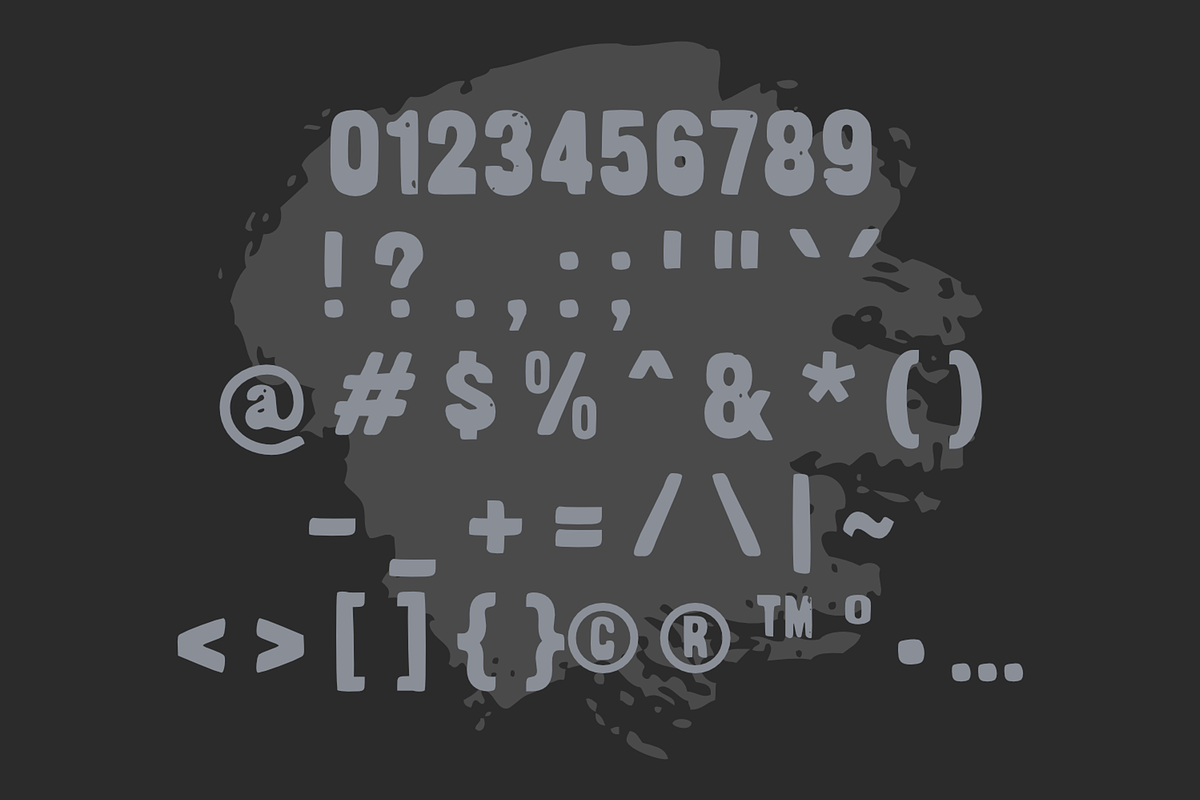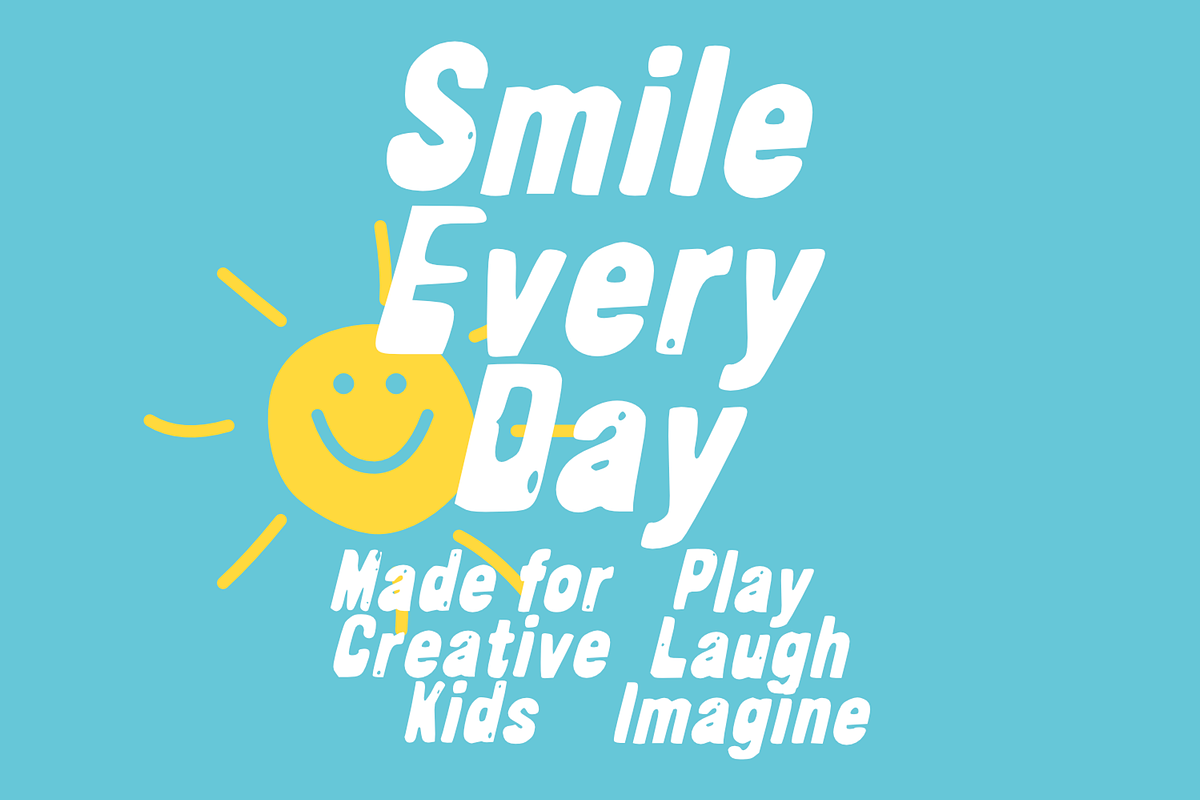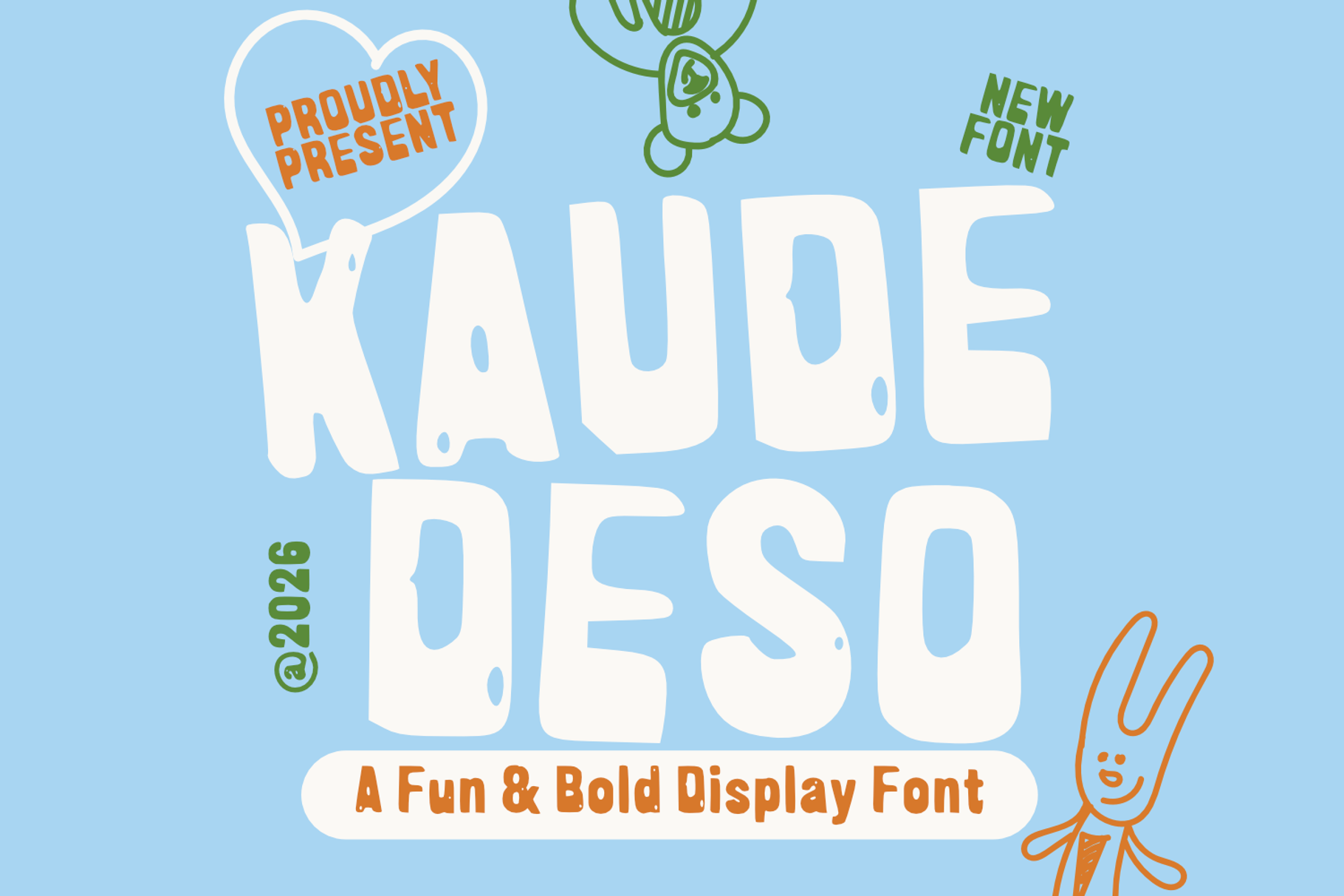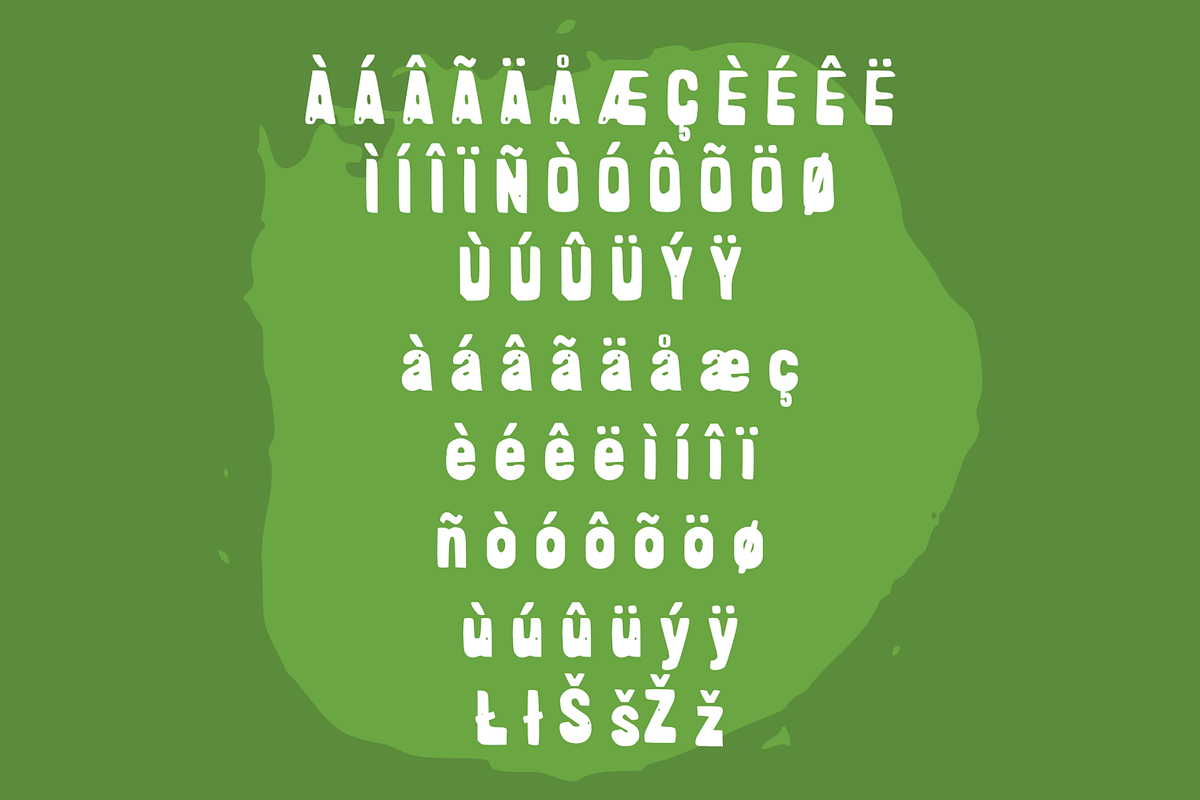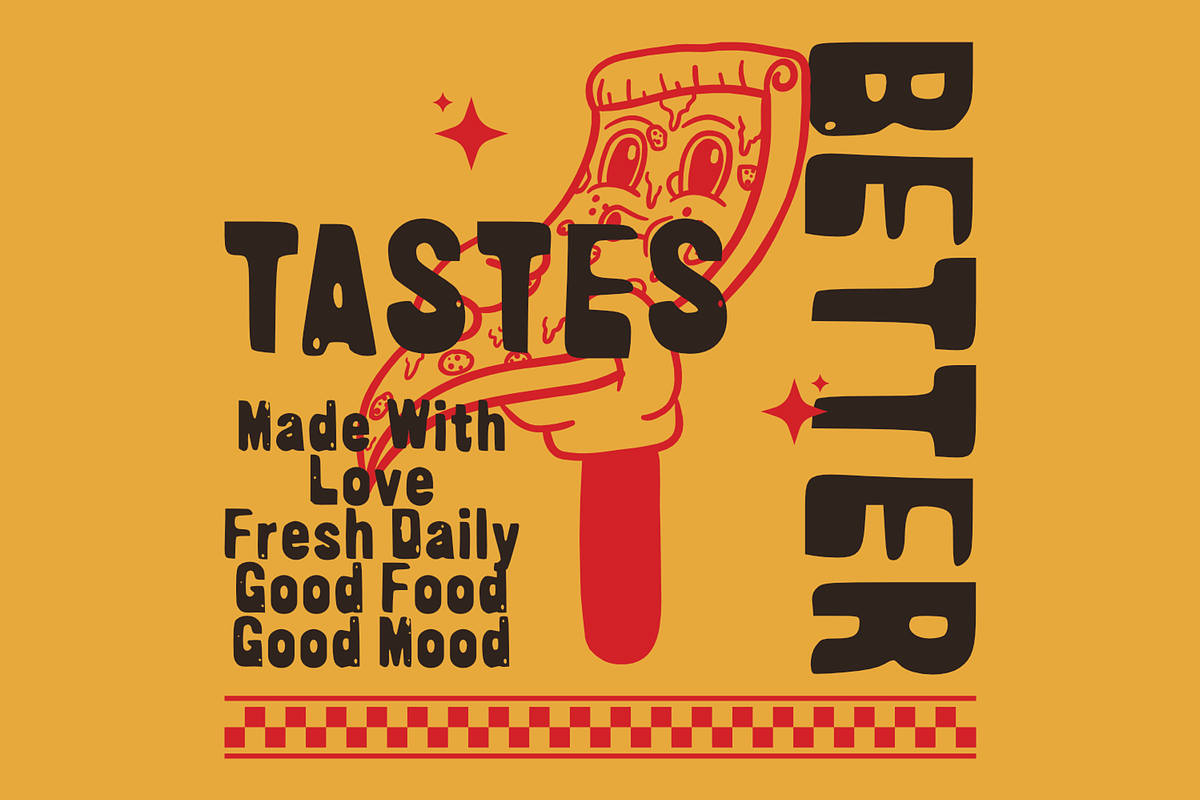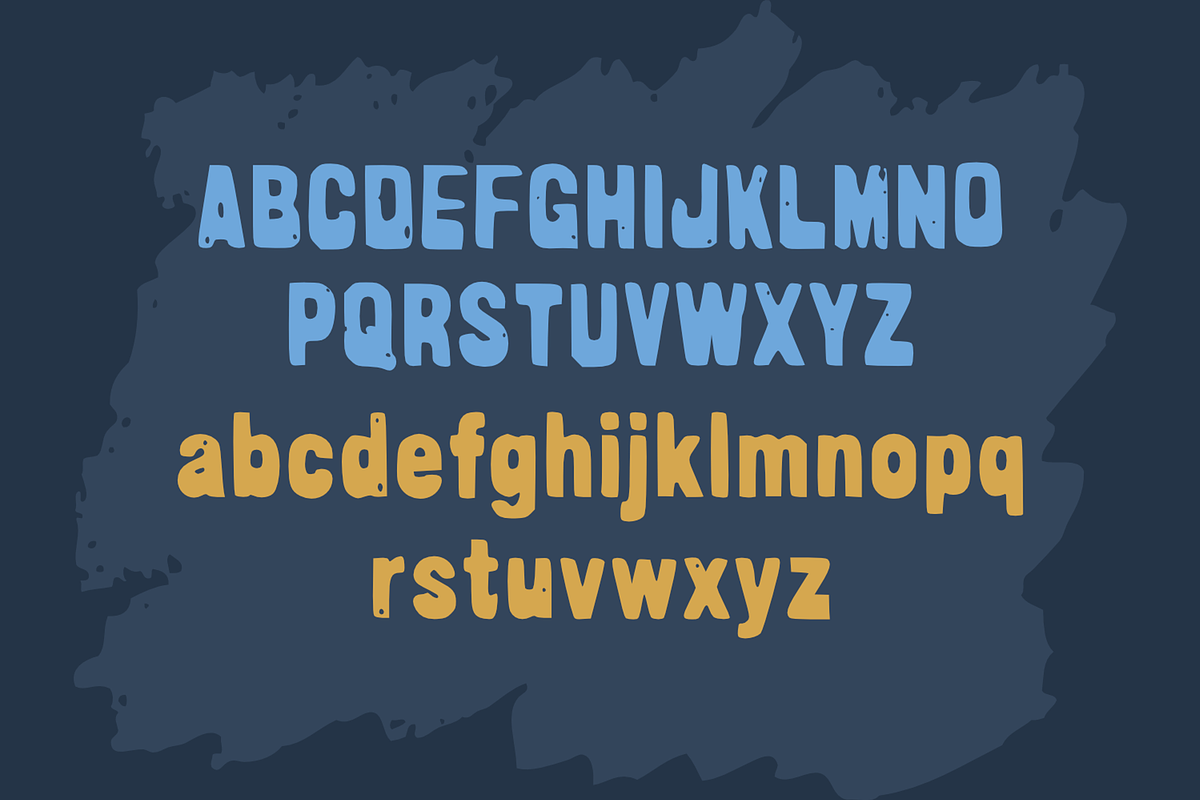
Kaude Deso Rustic Display Font
Kaude Deso is a bold handmade display font inspired by rustic charm, playful creativity, and vintage handcrafted lettering. Featuring thick, organic letterforms with subtle irregular details, this font brings warmth and personality to every design. Its friendly and eye-catching style makes it perfect for logos, branding, packaging, posters, apparel, café menus, food labels, children's projects, social media graphics, and creative merchandise. Whether you're creating a retro-inspired design or a fun modern project, Kaude Deso delivers a unique handcrafted look that stands out with confidence and character.